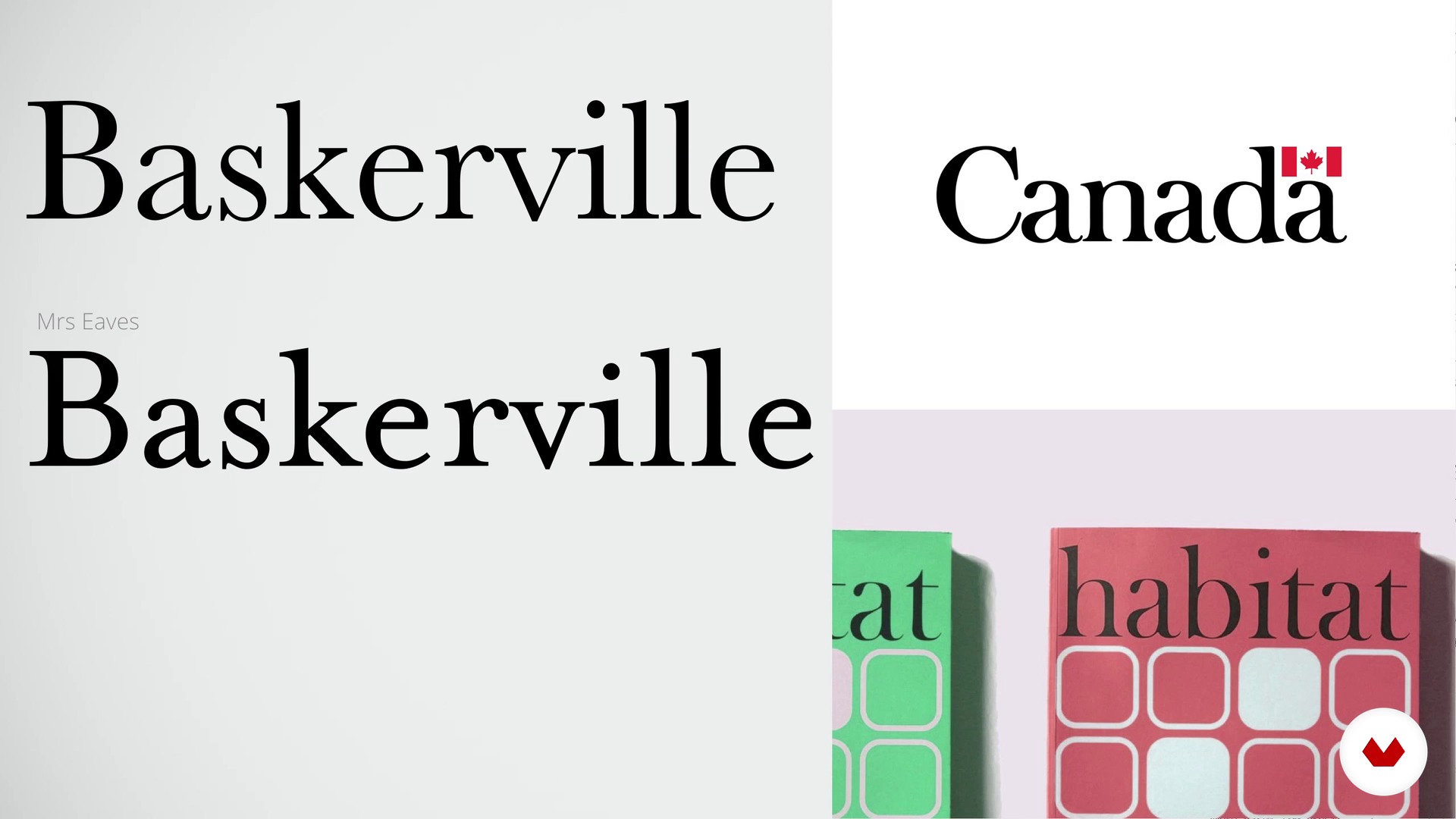
Other letters you should know
About the video: Other letters you should know
“We will see other fonts that we have not yet dealt with and that will surely become classic.”
In this video lesson Enric Jardí addresses the topic: Other letters you should know, which is part of the Domestika online course: How to Choose Fonts. Discover what each type of font tells us and how to choose the right one for your project.
“Other letters you should know At the beginning of the course, we saw how the Roman letters appeared, how later they evolved to modern letters. Later, we saw how the wooden letters appeared, the Egyptian letters, the great type revolution of the twentieth century. Now we are going to see other letters that we have left. Some are already classic letters that are part of the repertoire of the classic designs that you have surely seen and know. And also those that are likely, we'll see, that will become classics in the coming years. When we start to see what the letters tell us, We started by t...”